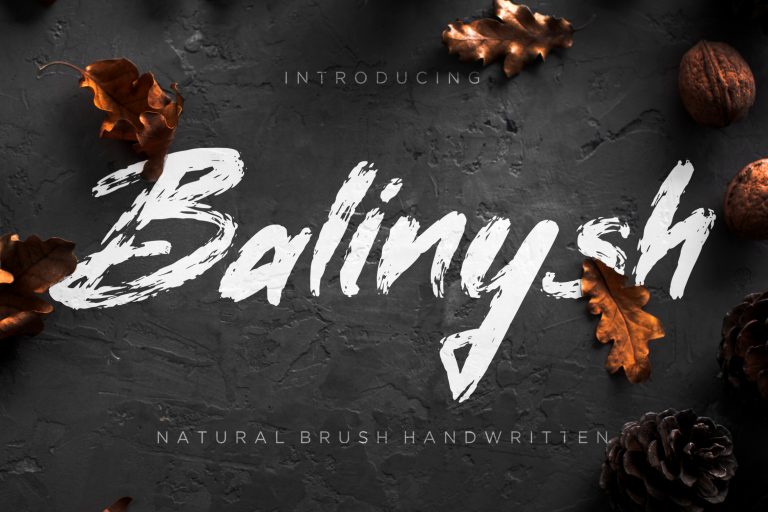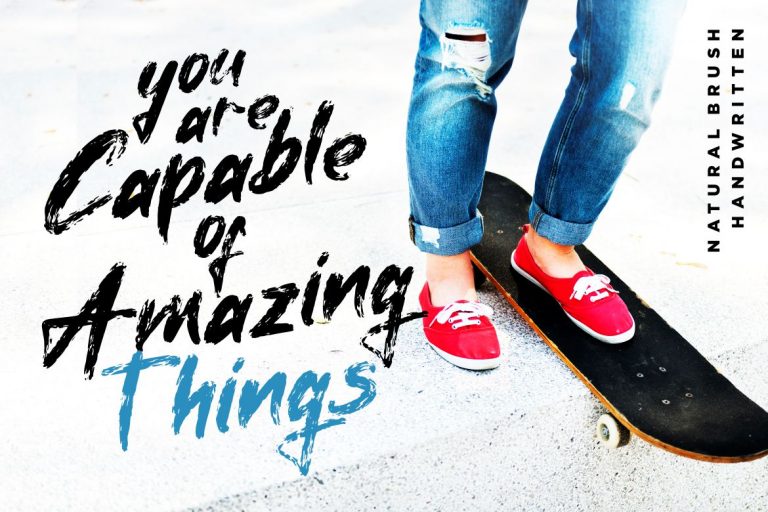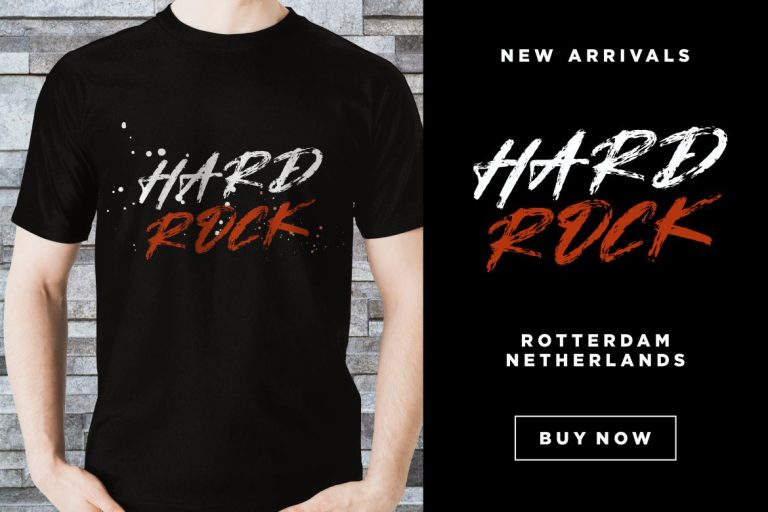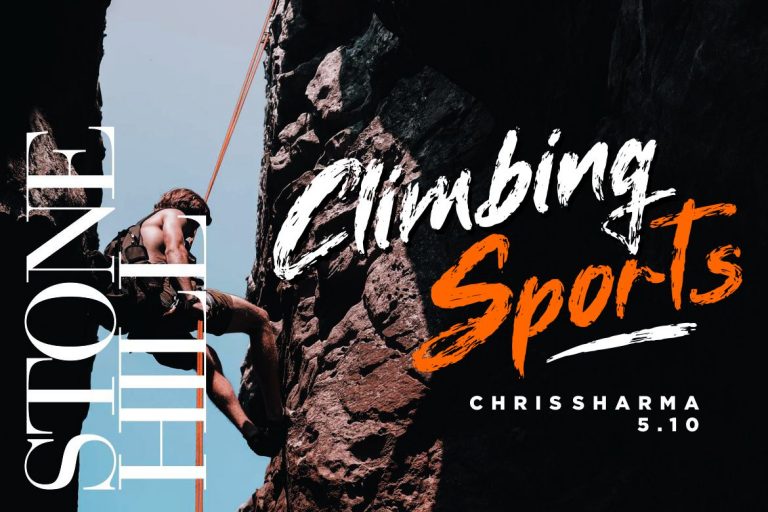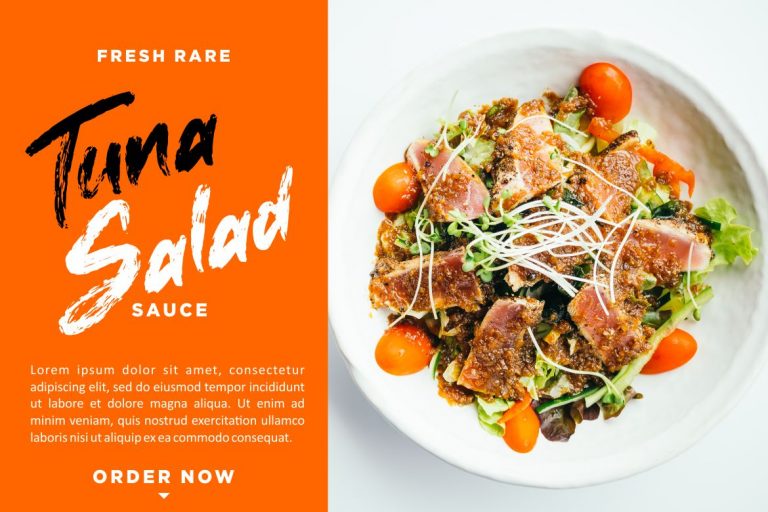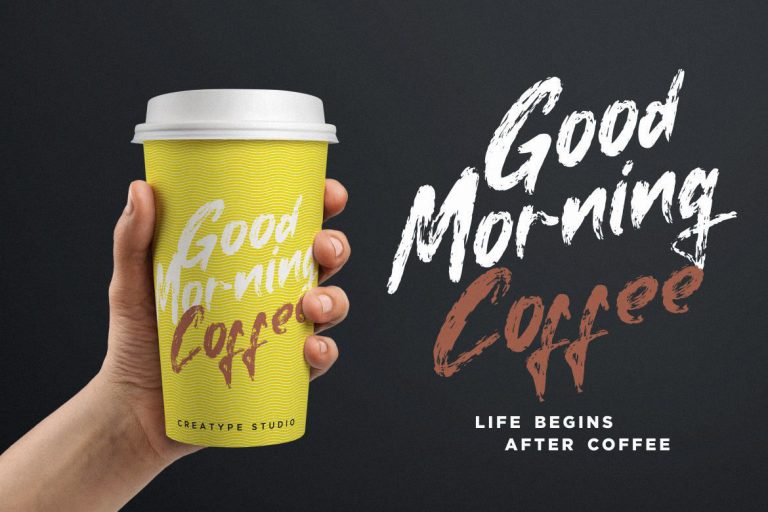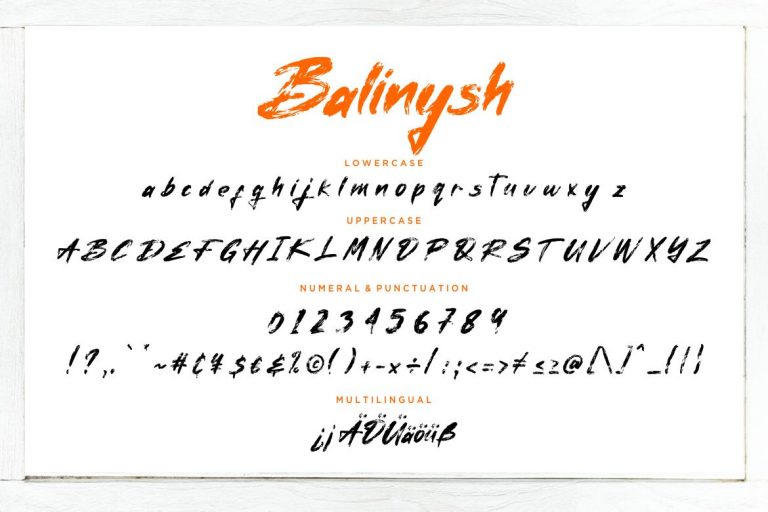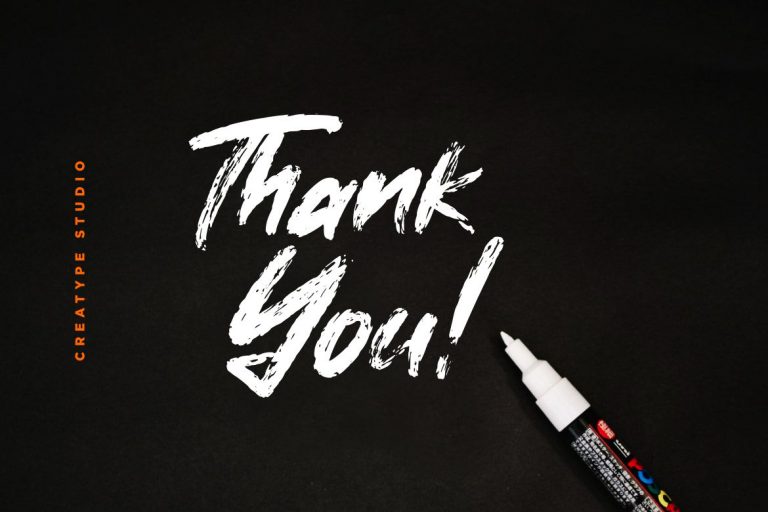
Balinysh Natural Brush Handwritten
Balinysh is a handwritten with natural brush font and looks bold and hard brush.
Balinysh is perfect for branding projects, logo, wedding designs, social media posts, advertisements, product packaging, product designs, label, photography, watermark, invitation, stationery and any projects that need handwriting taste.
- Fonts include multilingual support for; ä ö ü Ä Ö Ü ß ¿ ¡